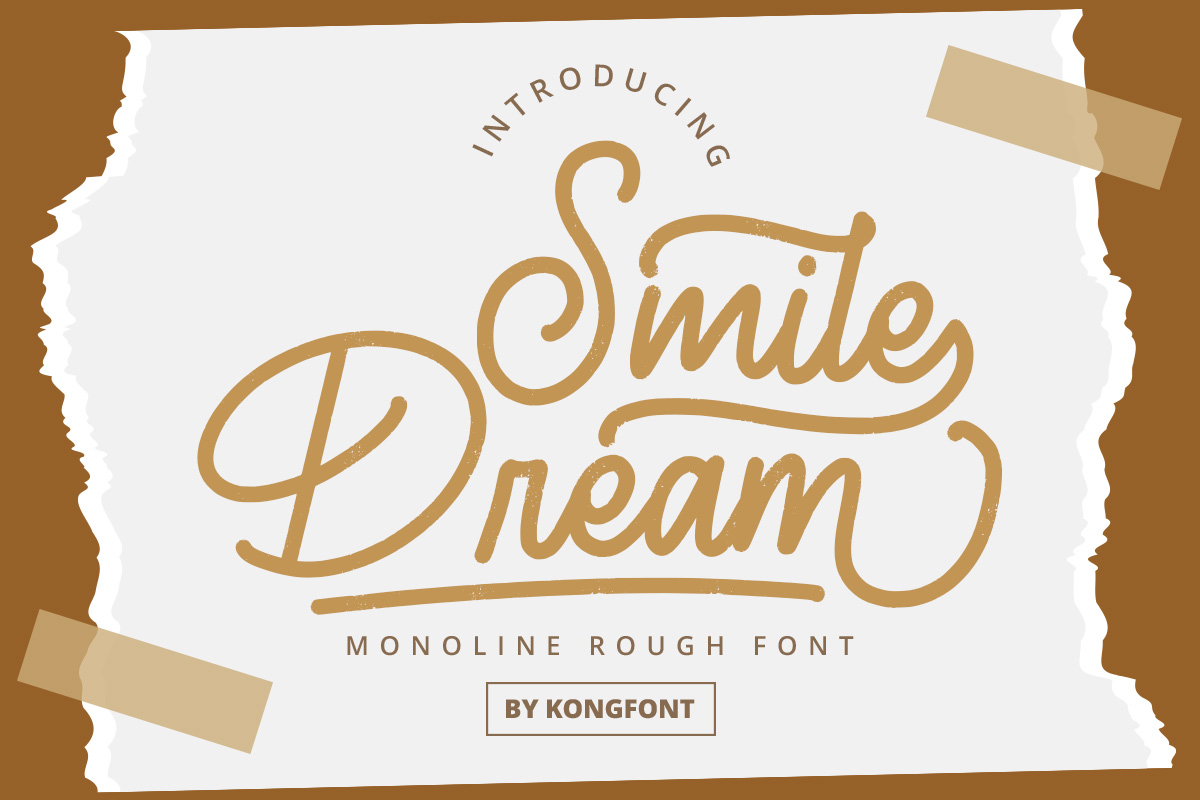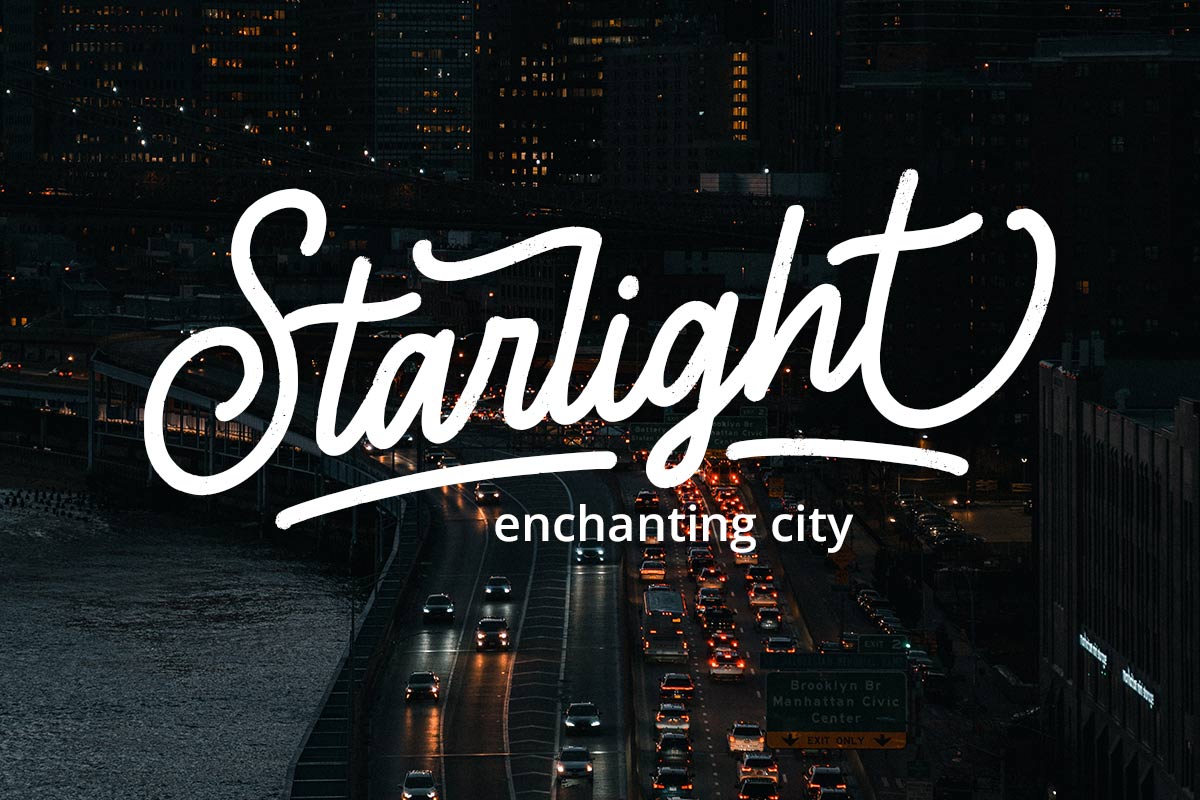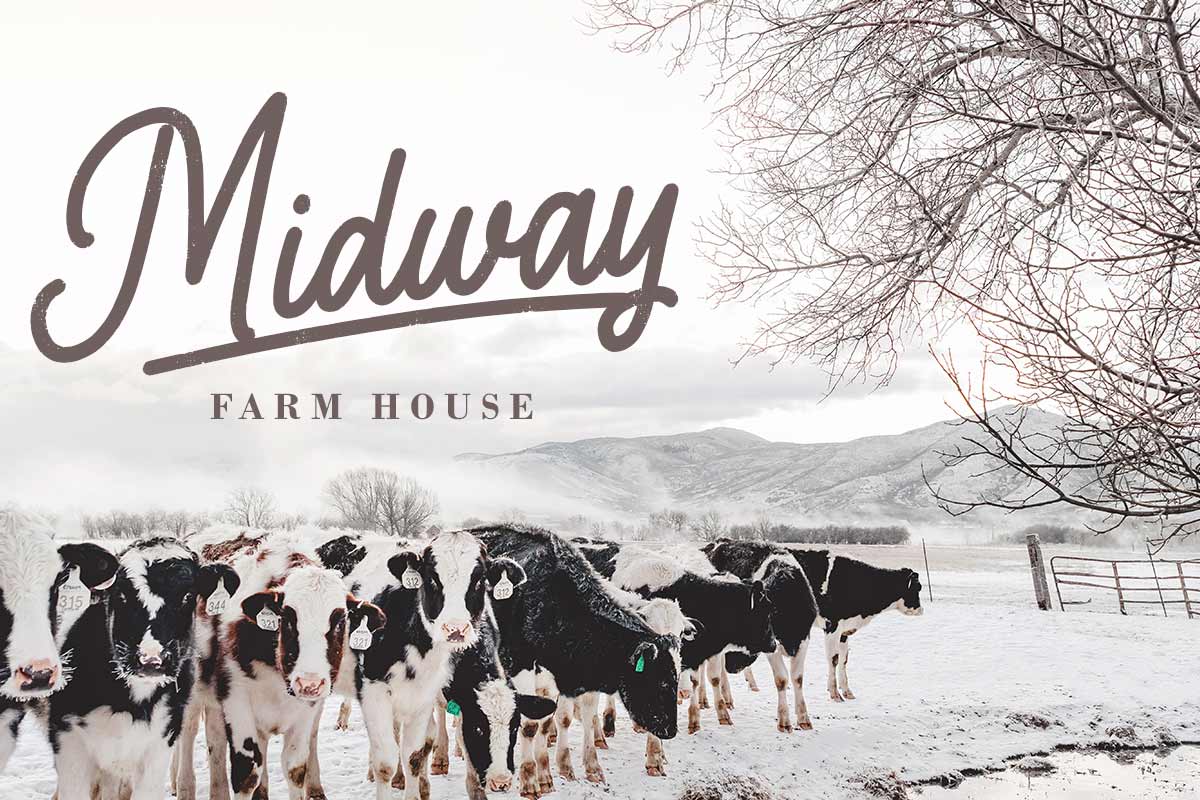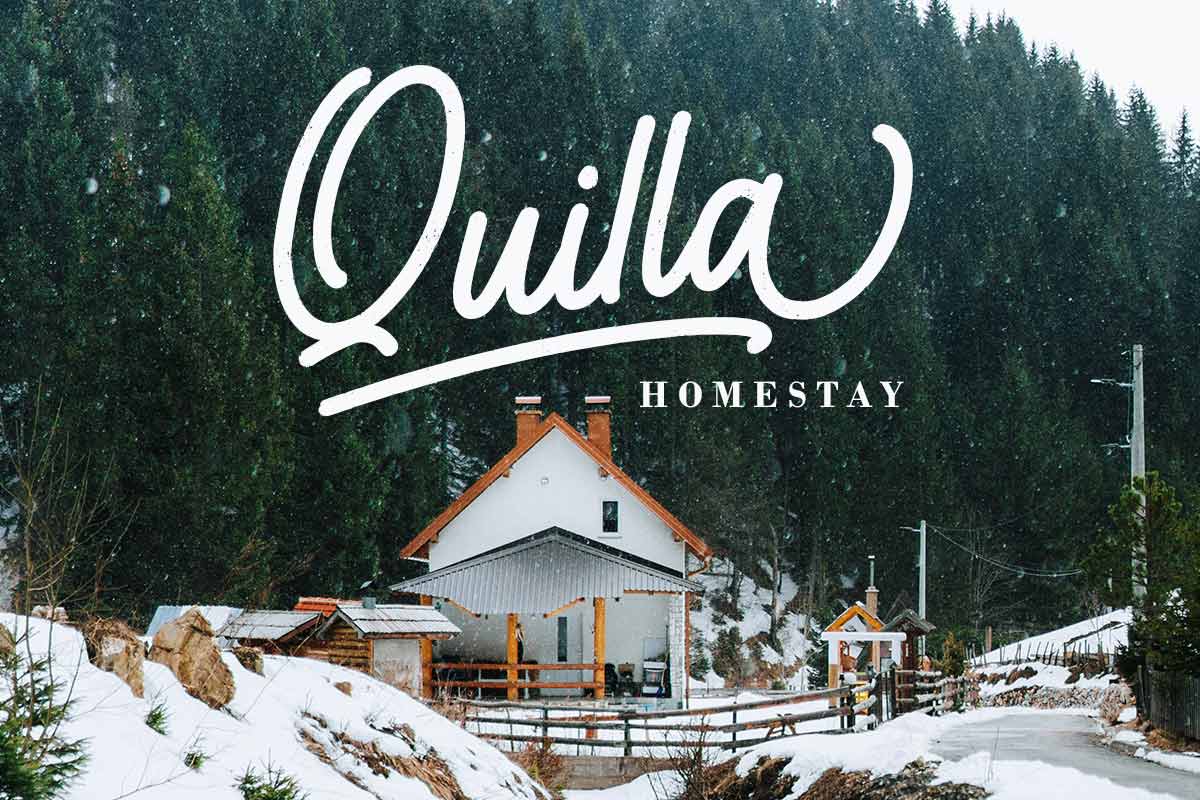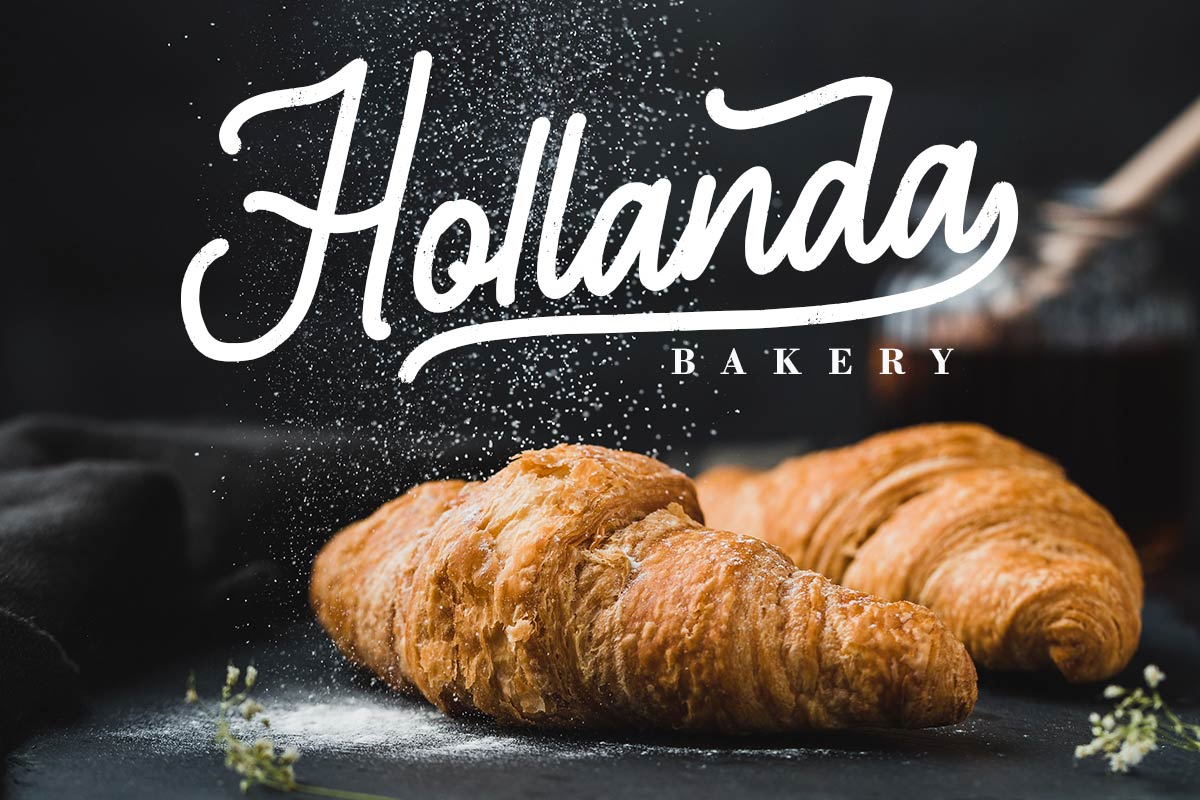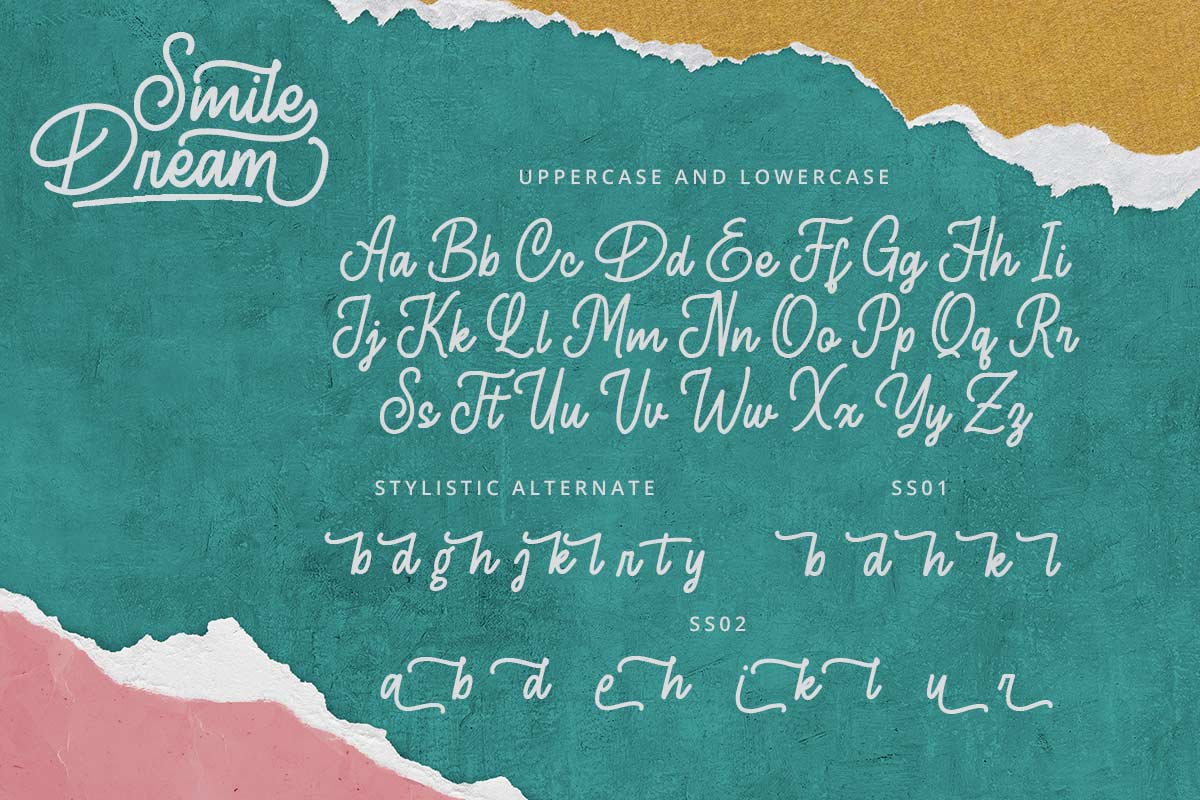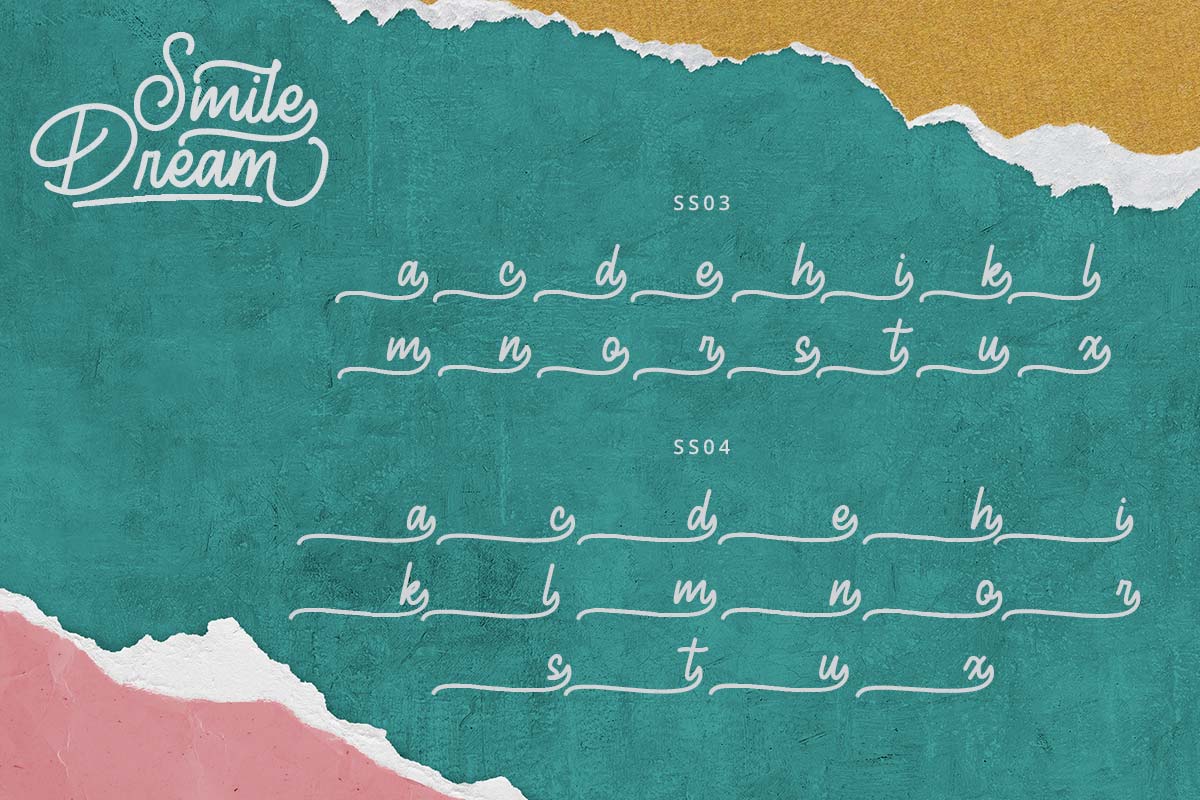
Smile Dream Monoline Font is part of the Script & Signature font family. This font is a modern typeface and exudes a simple and elegant impression. This font looks like handwriting made using a brush with a continuous writing technique so that the letters connect beautifully. However, compared to other typefaces, JSmile Dream Monoline Font has more limited uses. This typeface is more suitable for formal events such as weddings, classical music concerts, graduation ceremonies, etc. This typeface can use for making printing invitations, posters, or souvenirs. A script typeface such as the Smile Dream Monoline Font is one of the eligible fonts for use on promotional material for a new movie or song. This typeface is the best font for product brandings, such as snack packaging, brand tags, and store sales. Our Smile Dream Monoline Font doesn't need many embellishments or extra work to look great on print and digital fonts. All you need is the skill to understand what combinations of good fonts and different typefaces work together. The best version of our fonts can bring out the right colors and themes. Smile Dream Monoline Font is inappropriate when used in a long body of text with dense information for the reader because the shape is difficult to distinguish between letters and connect them. Therefore, Smile Dream Monoline Font is one of the eligible fonts. Our Script & Signature fonts collection is compatible with Figma fonts, Canva fonts, Freepik Fonts, and Adobe Fonts. They also work as Windows and Apple Fonts. For your social media needs, you can use and install fonts in our Script & Signature font collection to use as Instagram Fonts, Facebook Fonts, and Twitter Fonts.